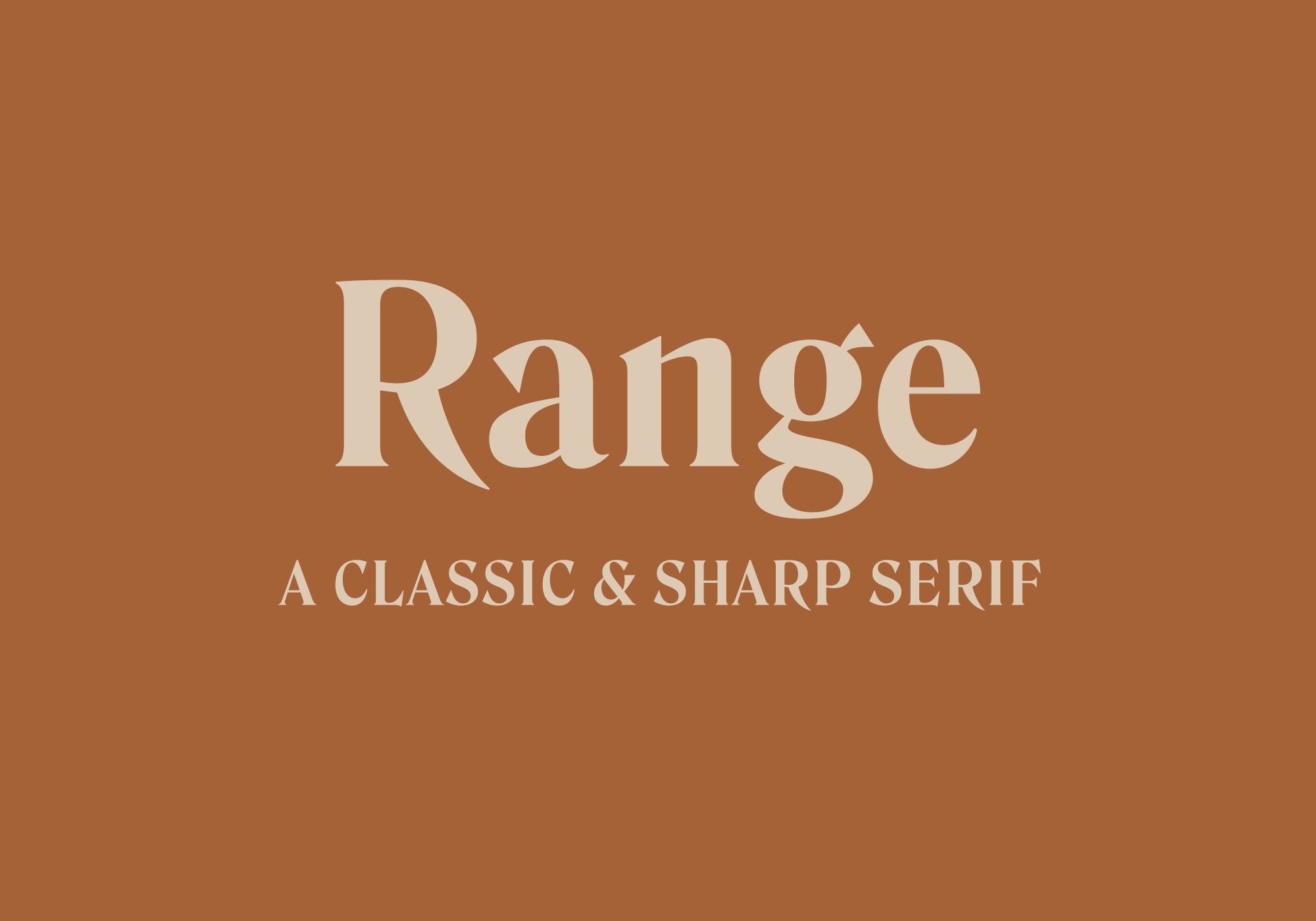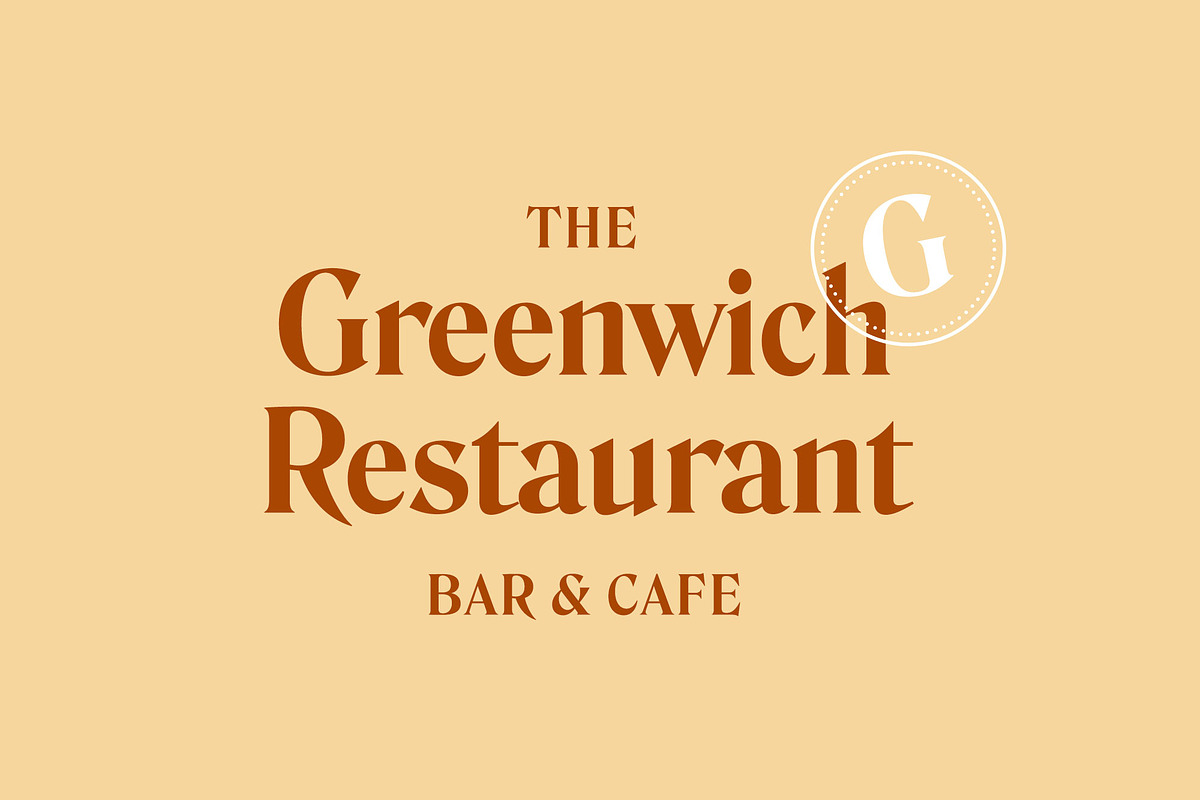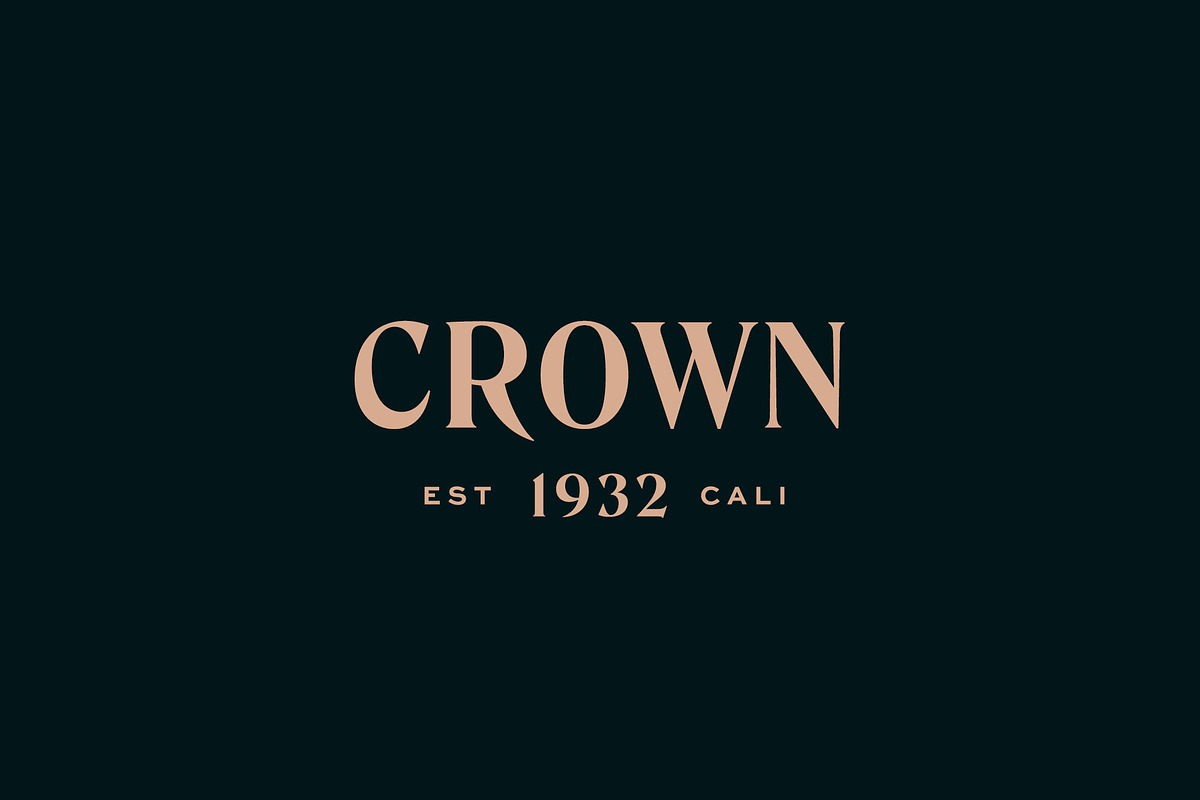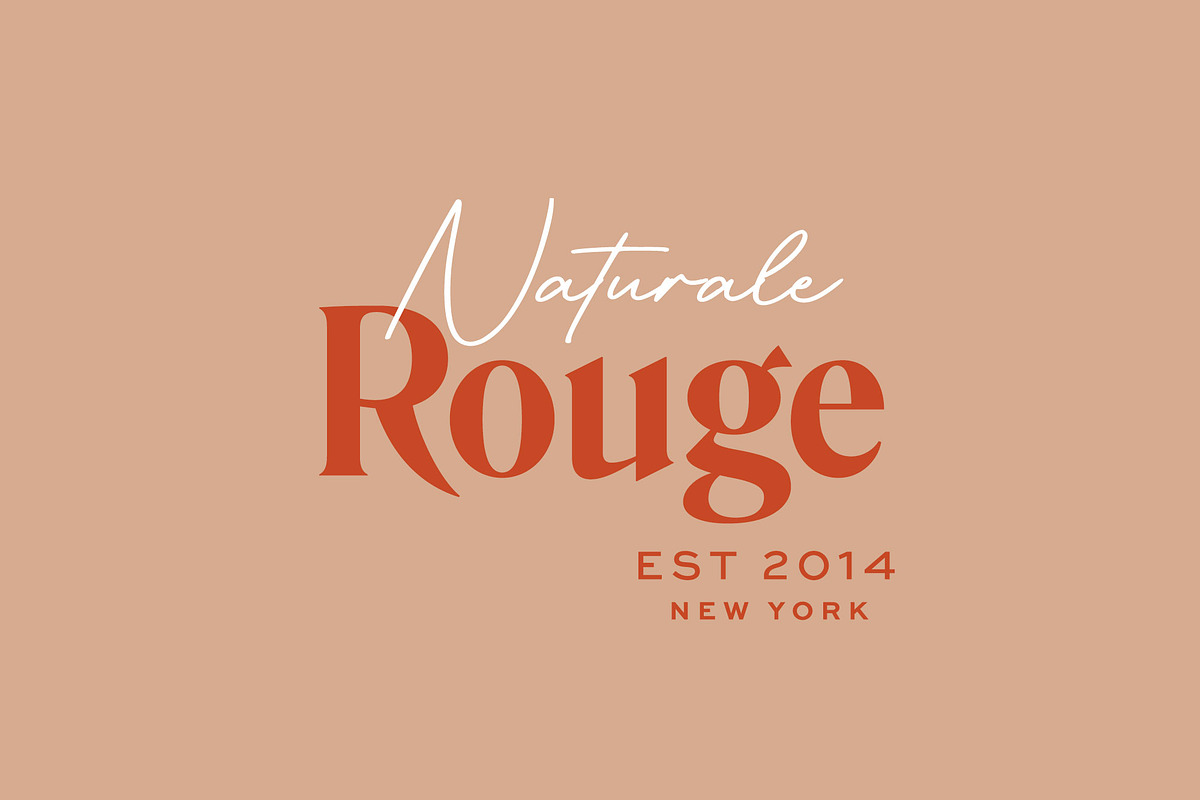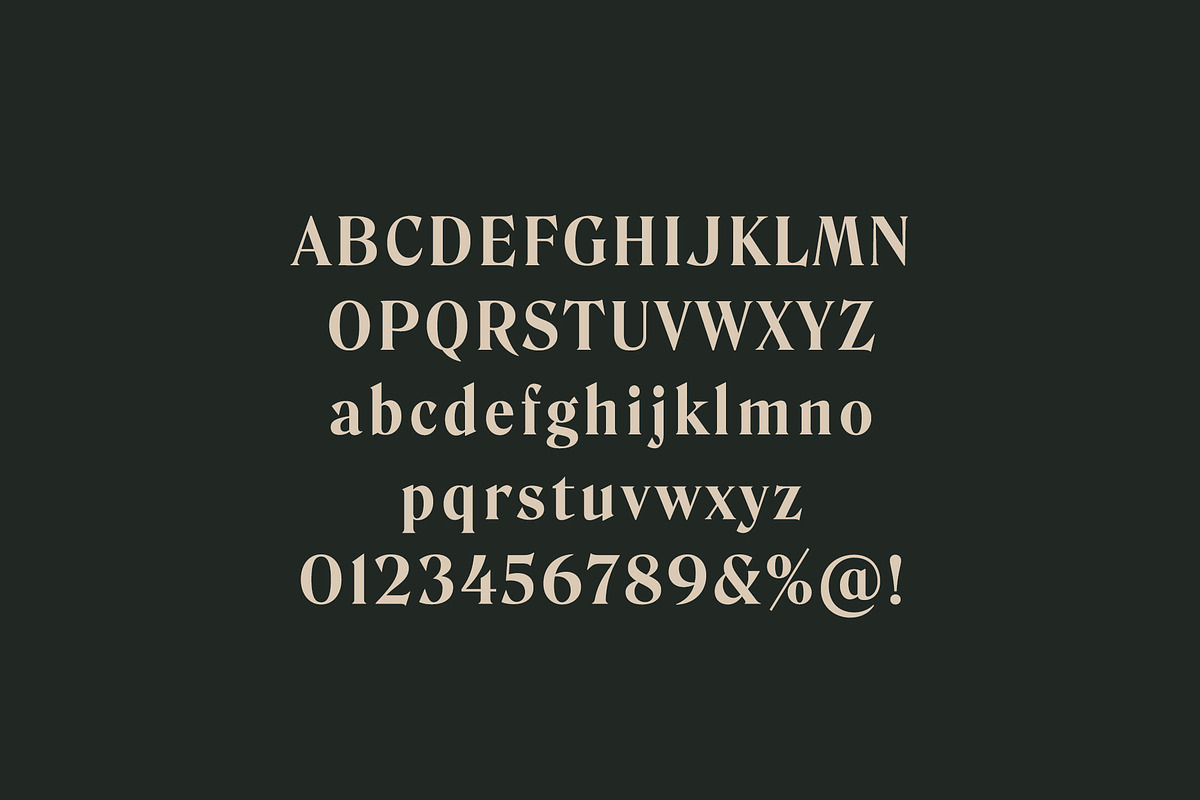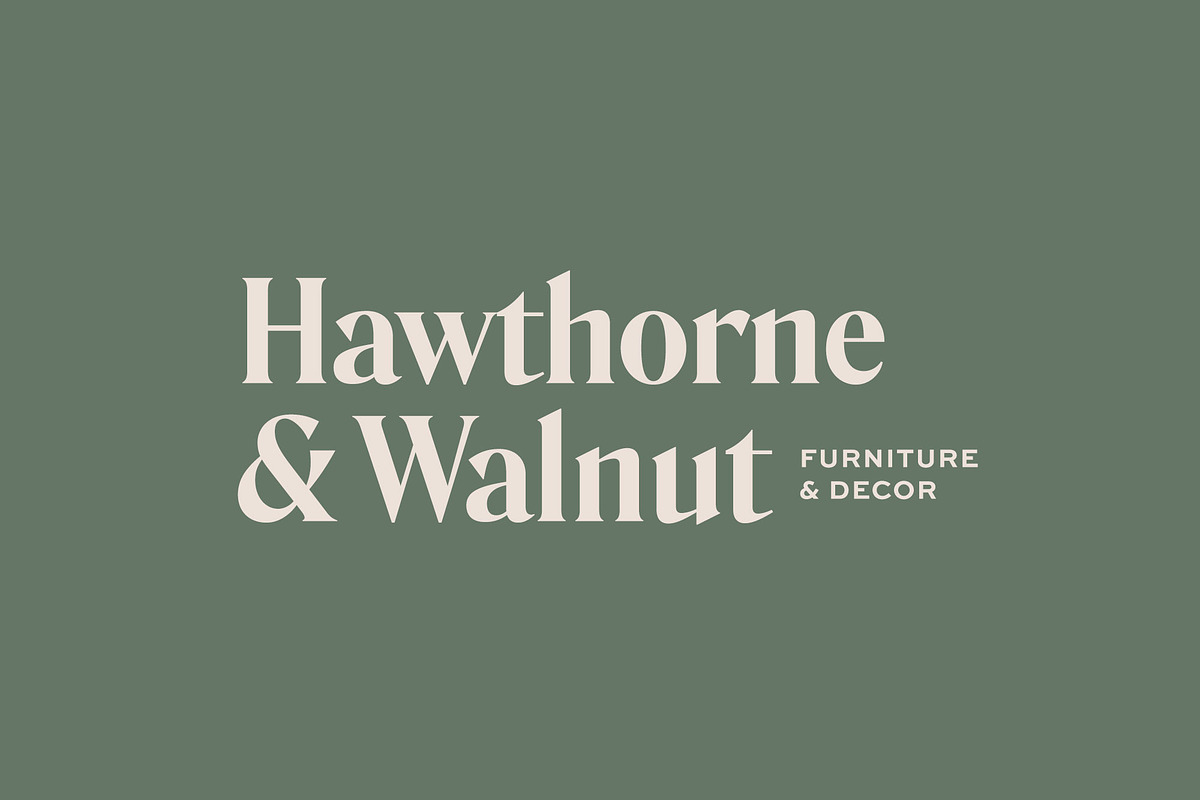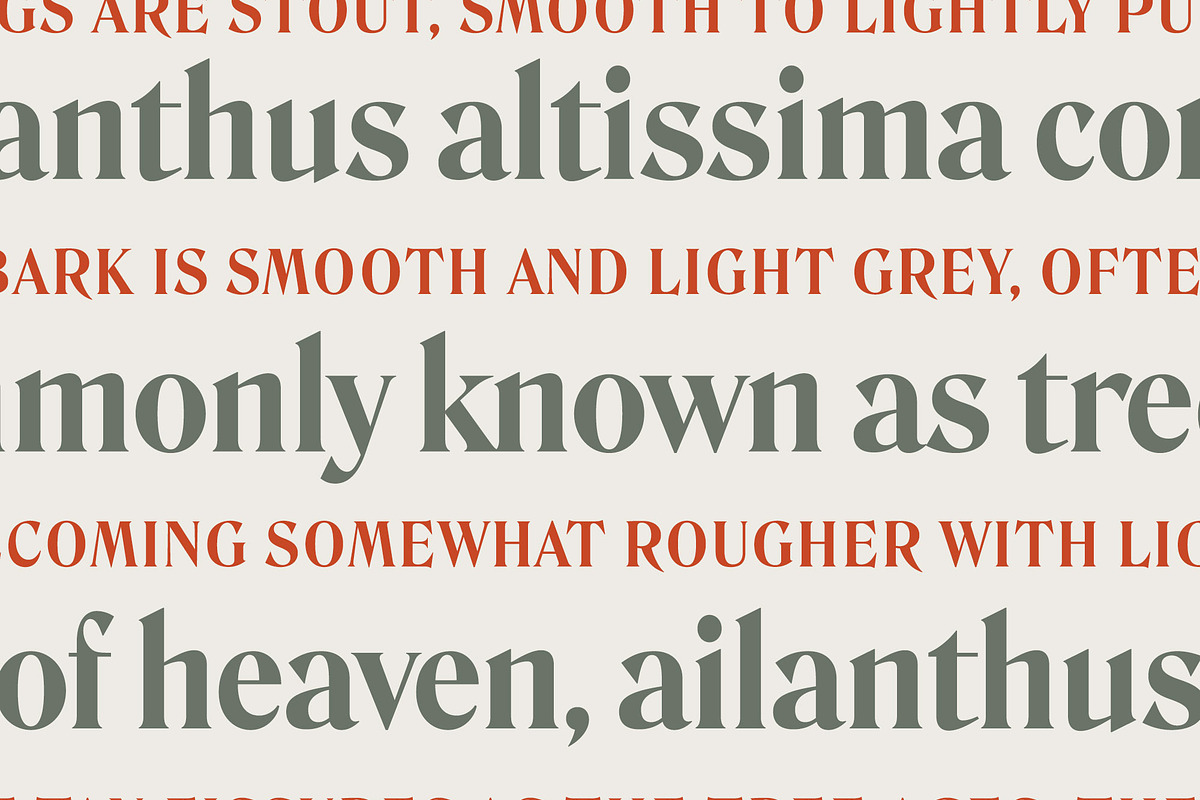
Range — A Vintage Classic Serif Font
Range is a classic serif inspired by early 20th century serifs. It's a very versatile font that works great in large and small sizes, in all caps and lowercase. Range is perfect for magazines, branding projects, logo design, clothing branding, product packaging, or simply as classy text to overlay to any background image.